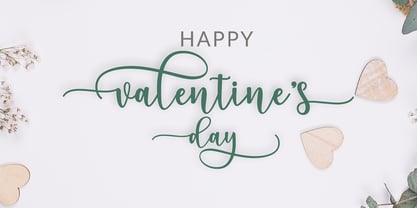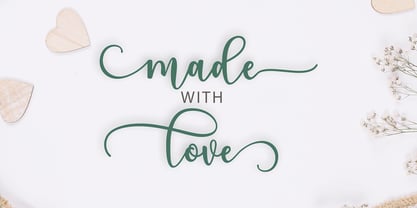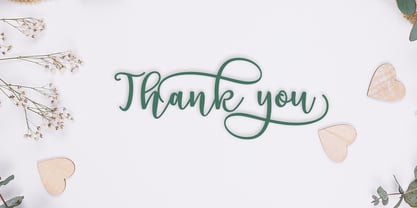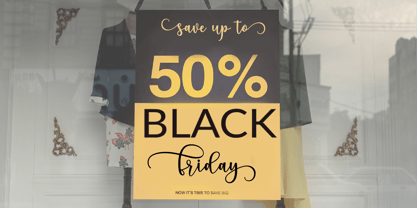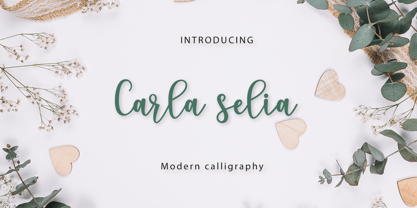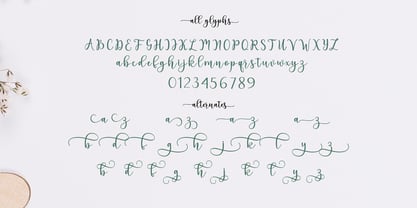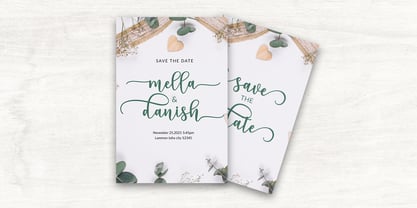
Carla selia
by Amarlettering
The Carla selia Font Family was designed by Kamaruddin and published by Amarlettering. Carla selia contains 1 styles.
Font Carla selia is a delicate and elegant script font with a modern and sophisticated appearance. Its thin letterforms feature fluid strokes and subtle curves, creating a graceful and refined feel. The font is perfect for designs that require a sense of elegance and sophistication, such as wedding invitations, branding, or editorial design.